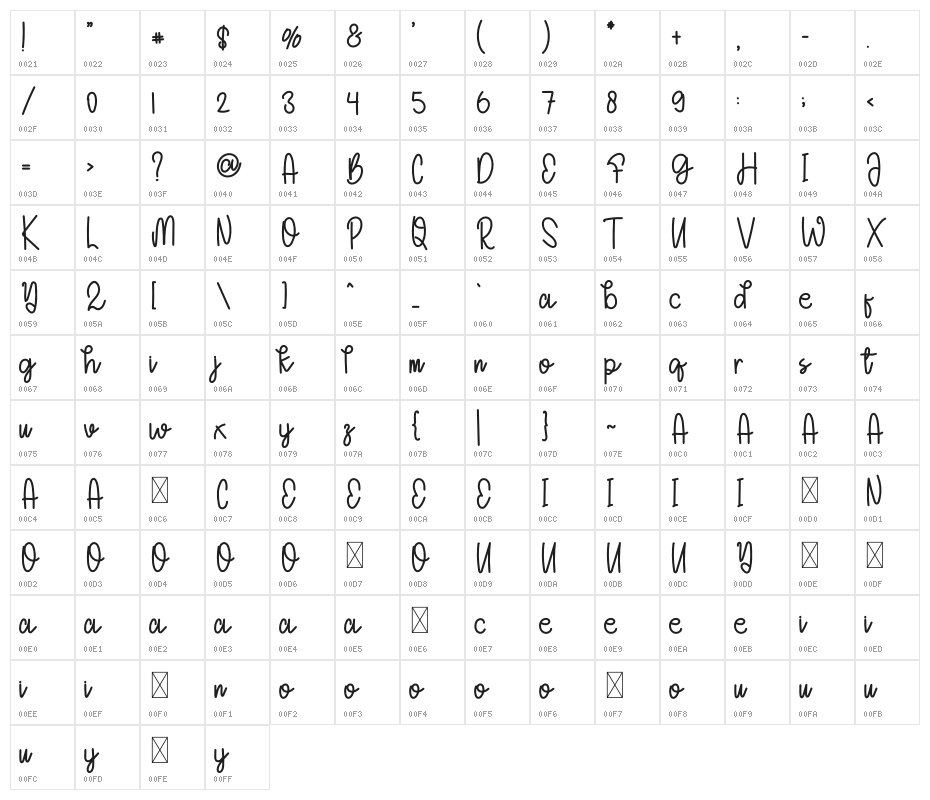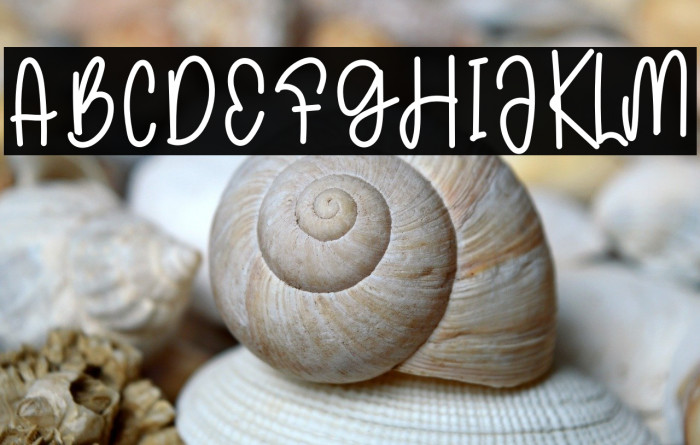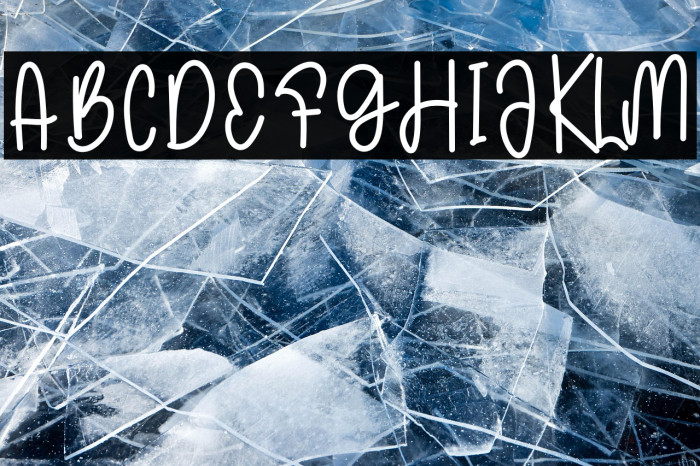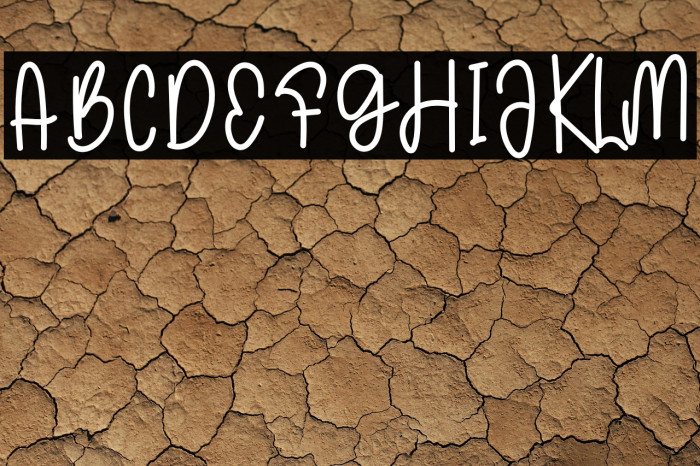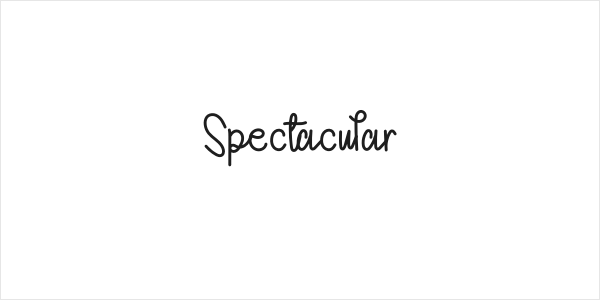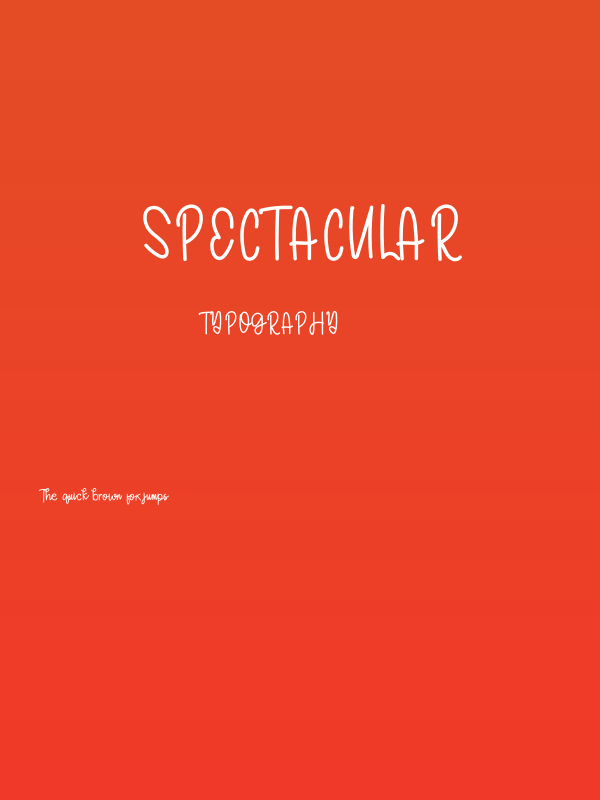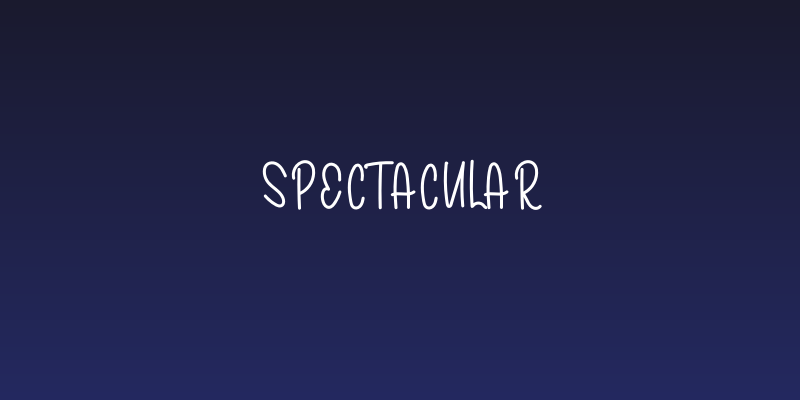
Spectacular Font
Spectacular Description
This font features a playful and whimsical style with a handwritten appearance. The uppercase letters are bold and rounded, with a consistent stroke width that gives them a friendly and approachable look. The lowercase letters maintain the same playful aesthetic, with some characters having unique loops and curves that add to the font's charm. The numbers are clear and easy to read, while the special characters are designed to match the overall style, making them suitable for creative projects. The font's consistent line thickness and rounded edges give it a cohesive and harmonious feel, perfect for adding a touch of personality to any design.
| Overall Style | Playful |
| Use Case | Logos, Headlines, Creative projects |
| Proposed Projects | Ideal for greeting cards, children's books, playful branding, and creative posters. |